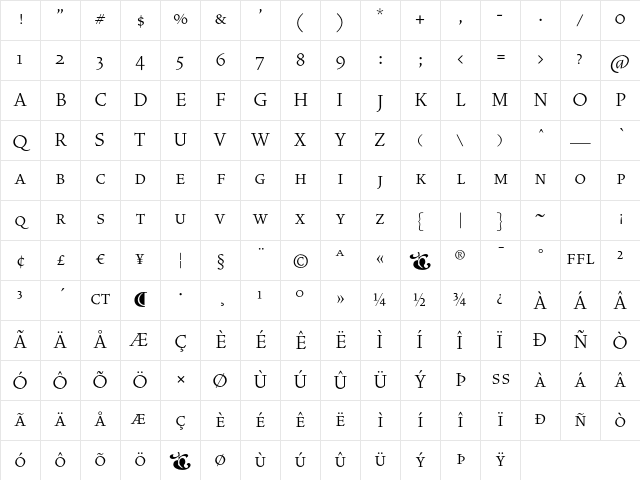
VendettaLight PetiteCaps
Style: PetiteCaps
Design Context for VendettaLight
VendettaLight is a composed and adaptable typeface that performs quietly and consistently across a wide range of design contexts. Its slender proportions lend an understated elegance to any composition.